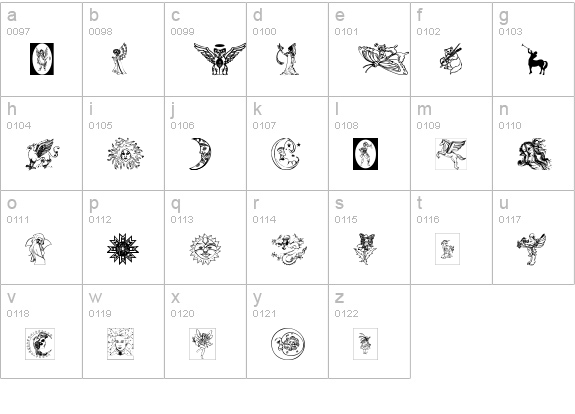
TheGoddess Font Details
TheGoddess font is a stunning display font that exudes elegance, grace, and beauty. With its intricate details and graceful curves, this font is perfect for adding a touch of sophistication to any design project. Whether you're creating a wedding invitation, a poster, or a logo, TheGoddess font will surely captivate your audience. What sets TheGoddess font apart is not only its aesthetic appeal but also its accessibility. This font is available for free download at FontsMarket.com, making it easily accessible to designers and enthusiasts alike. With just a few clicks, you can have this exquisite font ready to use in your next creative endeavor. TheGoddess font comes in a variety of styles, allowing you to choose the perfect one to suit your needs. From bold and dramatic to delicate and whimsical, this font offers versatility, making it suitable for a wide range of design projects. Its timeless and classic design ensures that it will remain relevant and eye-catching for years to come. Whether you're a professional designer or a hobbyist, TheGoddess font is a must-have in your font collection. Its unique and enchanting design will add a touch of magic to your creations, elevating them to new heights. So don't miss out on this opportunity to enhance your designs with TheGoddess font - download it for free at FontsMarket.com today!